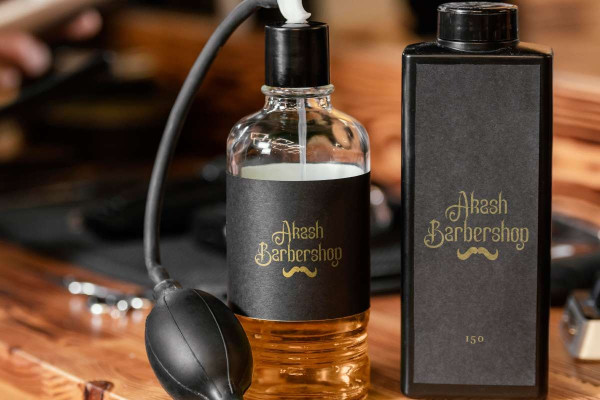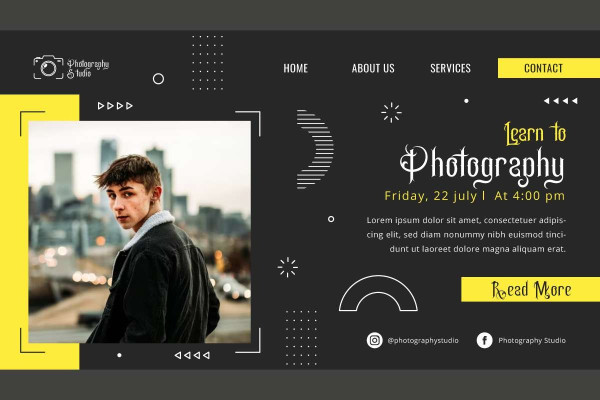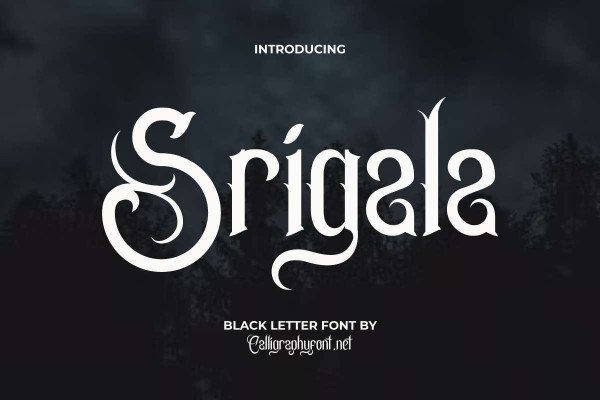
Srigala Font
Srigala Font is a vintage blackletter font with Gothic looks which was inspired from old style Mediterranean Western Europe. Now it comes with a modern look and will be perfect for any creative project, such as billboard, brand logo, embroidery design, header, label, packaging design, screen print, stationery, sticker, website, and many more.
Srigala Font is the best choice that presents a bold and tough look to reflect artistic side. It will be great for any industry, including: accessories, advertisement, author, band, café, entertainment, fashion brand, handicraft, menswear, movie, music, perfume, photography, printing, publishing, restaurant, sport, writer, etc.